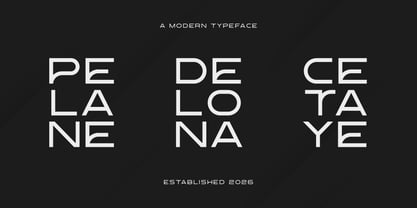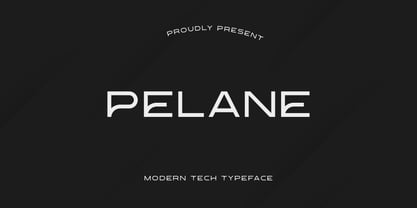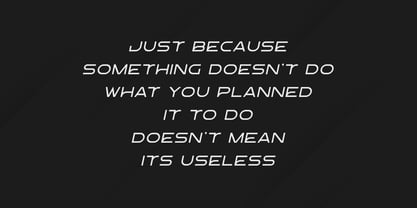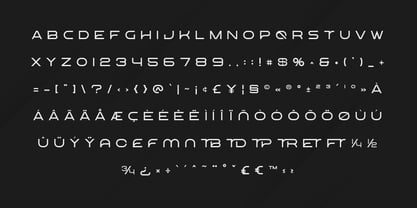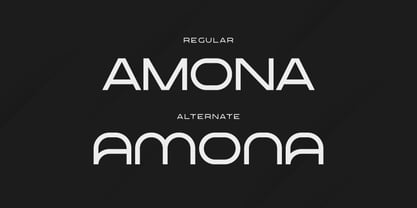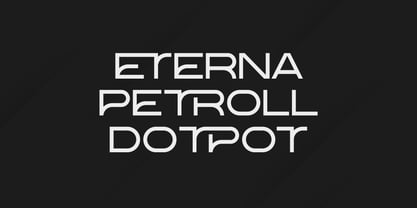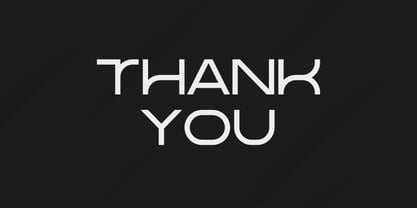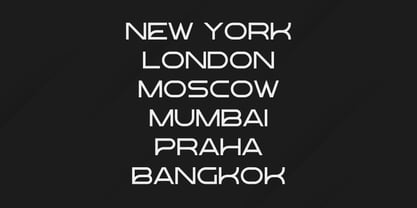
Pelane
par Artiveko
La famille de polices Pelane a été conçue par Iwan Alwan et publiée par Artiveko. Pelane contient 2 styles et options de package familial. En savoir plus sur cette famille
À propos de la famille
Pelane is a modern technology-inspired sans serif typeface designed with smart ligatures and stylish alternates to give your typography a unique digital personality. Built for the future of design, Pelane combines clean geometry, sharp structure, and smooth rhythm—perfect for UI/UX, apps, websites, SaaS platforms, tech branding, and innovative visual systems. What makes Pelane stand out is its rich OpenType features. With creative ligatures and alternate characters, you can craft distinctive wordmarks, logos, and headlines that feel custom and forward-thinking. Pelane stays highly readable on screens while delivering a strong, futuristic presence in both small interfaces and large display layouts. Pelane isn’t just a font — it’s a technology typeface with built-in style intelligence.
Concepteurs: Iwan Alwan
Fonderie: Artiveko